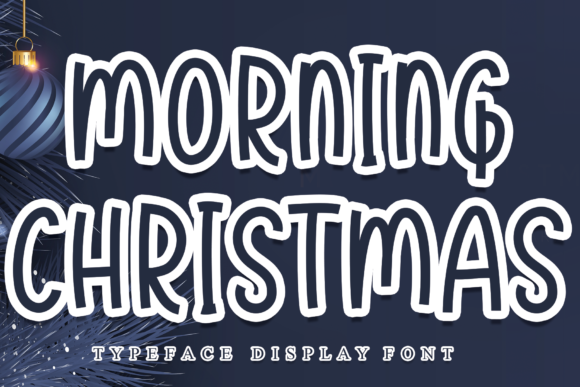
Discover Morning Christmas Font, the ultimate display font that transforms your designs into captivating masterpieces. Designed by the renowned andikastudio, this bold and trendy font family exudes modern elegance, promising to leave a lasting impression on your audience.
Morning Christmas Font is a symphony of clean lines and striking curves, a visual feast that dances across your designs. Its meticulously crafted characters command attention, making every word a statement and every message a declaration. Whether you're creating eye-catching banners, captivating logos, or stunning social media graphics, Morning Christmas Font elevates your designs to new heights.
With its inherent versatility, Morning Christmas Font effortlessly adapts to a diverse range of projects. Its bold strokes add a touch of drama to headlines, while its refined details bring a sense of sophistication to body text. From playful and whimsical themes to serious and professional endeavors, Morning Christmas Font seamlessly complements your vision, delivering exceptional results every time.
Embrace the creative possibilities and let your imagination soar with Morning Christmas Font. Its intuitive nature makes it a breeze to use, ensuring a seamless design experience. Join the growing community of designers who trust Morning Christmas Font to elevate their work and captivate their audience.